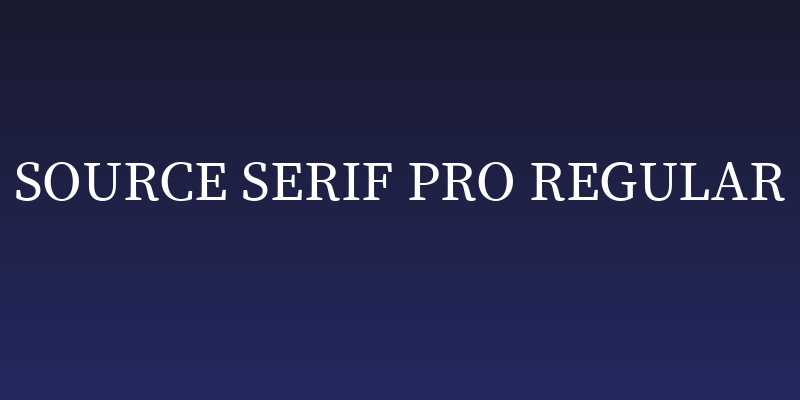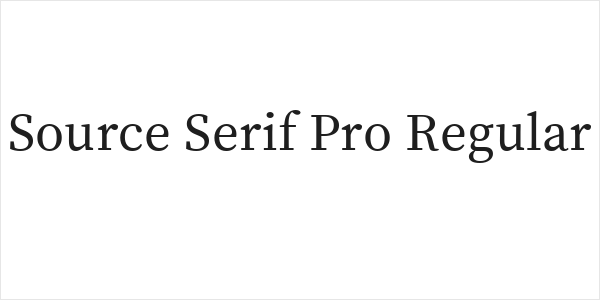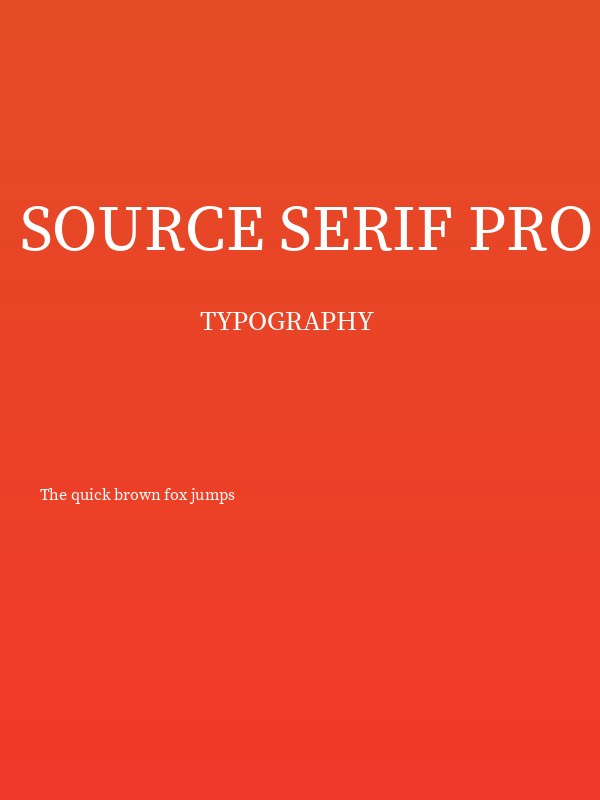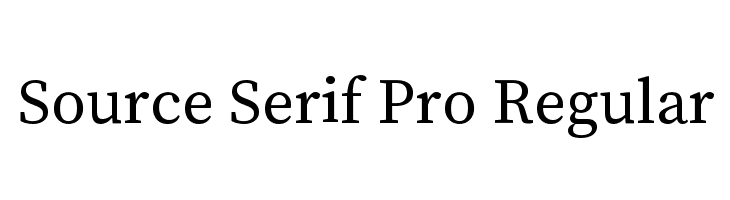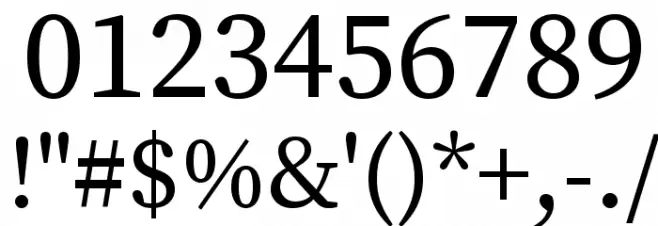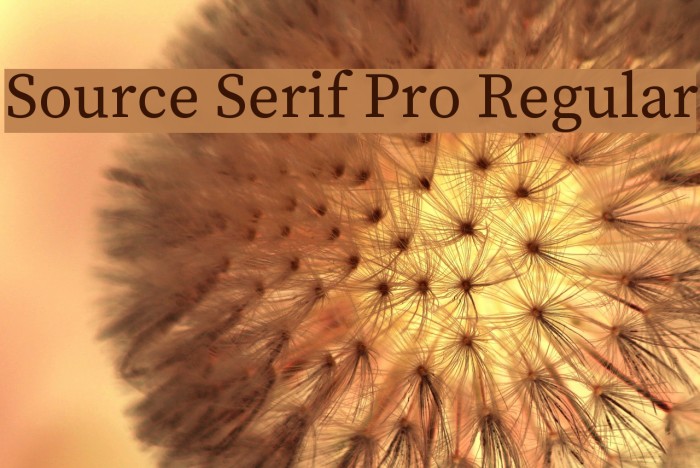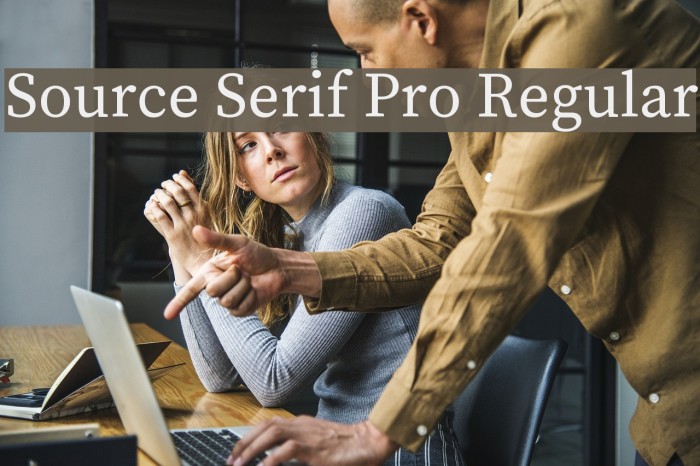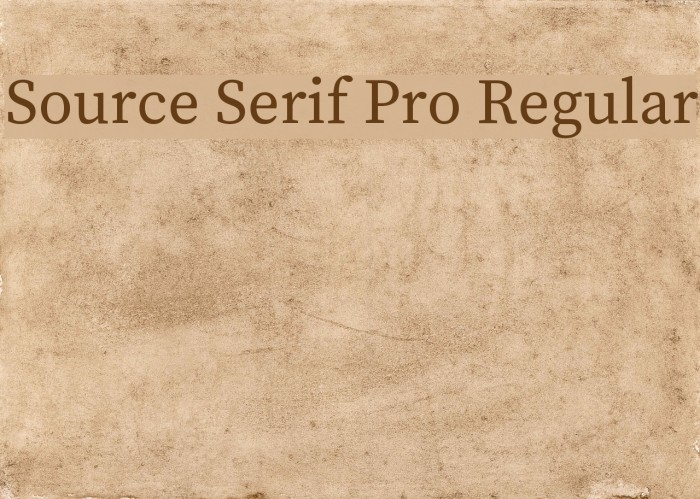
Source Serif Pro Regular Font
Source Serif Pro Regular Description
This typeface embodies a classic serif style, featuring elegant and refined strokes that provide a timeless appeal. The characters are well-proportioned, with a balanced weight that ensures readability across various sizes. The serifs are pronounced yet not overly ornate, contributing to a sophisticated and professional look. The font maintains a consistent stroke width, offering a medium contrast that enhances legibility without sacrificing style. Its design is versatile, making it suitable for both digital and print media. The spacing between characters is normal, allowing for clear and easy reading.
| Overall Style | Classic |
| Use Case | Body text, Editorial design, Book publishing |
| Proposed Projects | Ideal for editorial design, book publishing, formal invitations, and corporate branding. |